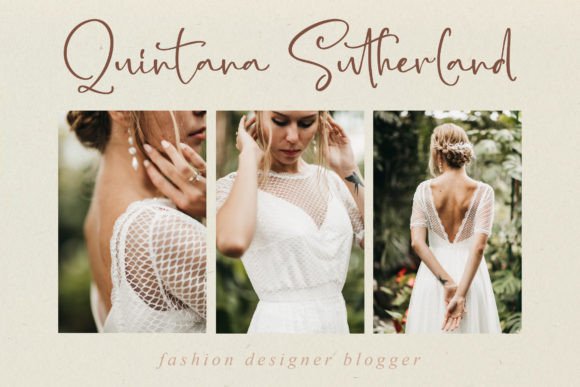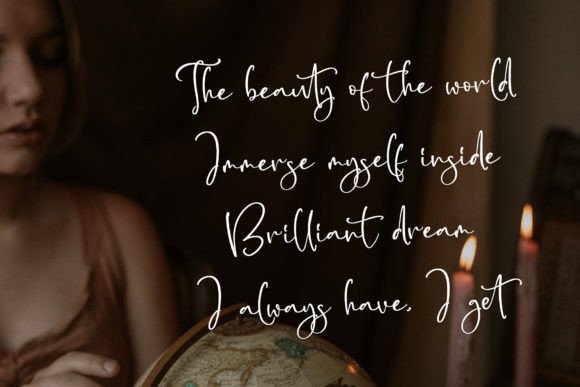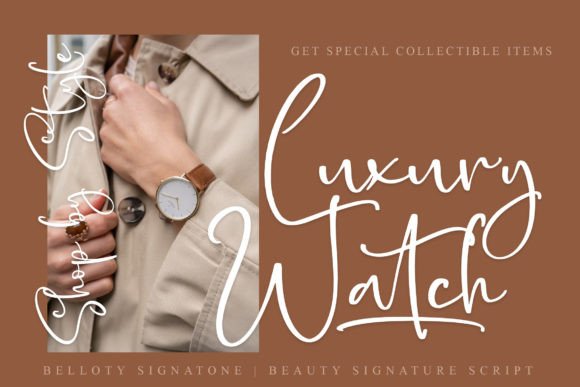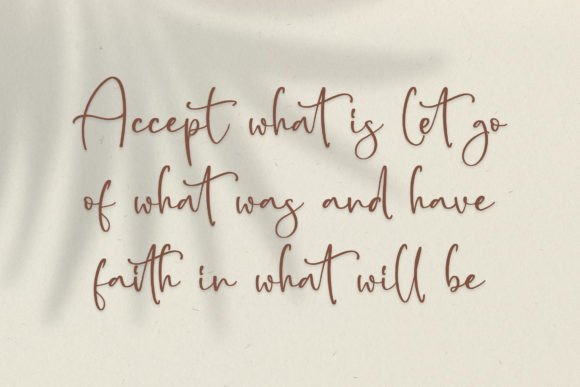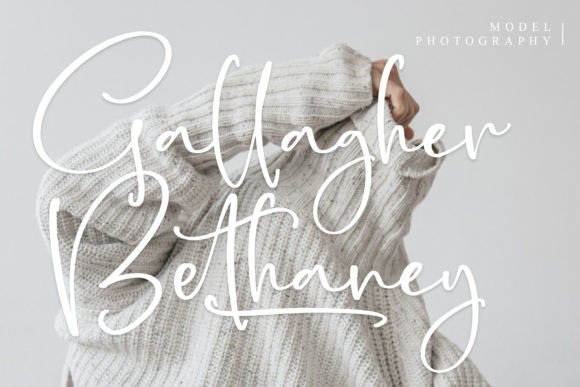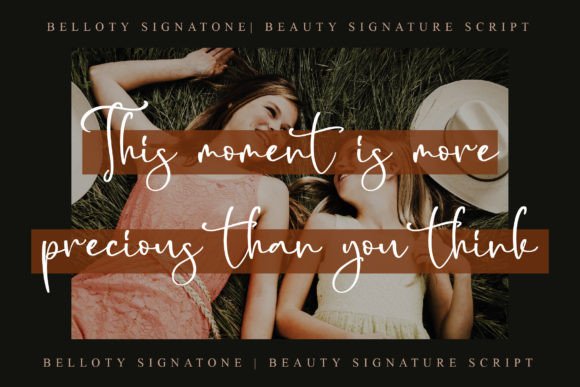
The Perfect Pen Stroke: Unleashing the Charm of Belloty Signatone Font
Have you ever sat down with a pen and paper, trying to craft the perfect signature? The pressure to make it look elegant, yet authentic, can be overwhelming. But what if you could capture that effortless charm in digital form? Enter the Belloty Signatone Font, a signature font that embodies the spirit of handwritten elegance.
With its easy-to-read design and simple yet distinctive style, the Belloty Signatone Font is perfect for a wide range of applications, from greeting cards and magazines to social media headers and more. For designers, this font is a valuable asset, offering a unique touch that sets their work apart from the ordinary. Whether you’re looking to add a personal touch to your designs or simply want to elevate your typography game, the Belloty Signatone Font is sure to impress.
Belloty Signatone Font Key Features
- Font Family: Belloty Signatone, a modern script font with unique flair
- Unique Characteristics: Features a distinctive, hand-drawn feel with subtle variations in letterform and connection, adding a touch of elegance to any design
Belloty Signatone Font Review
As a designer, I was excited to dive into the world of Belloty Signatone Font and see what it had to offer. Here’s my honest review:
- Unique blend of modern and vintage styles, making it perfect for creating a nostalgic yet trendy look.
- Beautifully crafted letterforms with subtle details that add character to the font.
- Comes in a wide range of weights and styles, making it easy to find the perfect fit for your project.
- Well-suited for use in logos, titles, and body text, thanks to its clear readability and versatility.
- May not be the best choice for large blocks of text, as the font can become overwhelming and difficult to read.
- Lack of ligatures and other advanced typographic features may limit its use in more complex design projects.
Overall, I’d say Belloty Signatone Font is a great addition to any designer’s toolkit. While it may have some limitations, its unique style and versatility make it a great choice for a wide range of projects.
For the best results, pair Belloty Signatone with a clean and simple design aesthetic. Use it for headings and titles to add a touch of elegance and sophistication.
Experiment with different font sizes and styles to create visual interest and hierarchy in your design.
Belloty Signatone is ideal for:
Business cards and letterheads
Editorial and publishing design